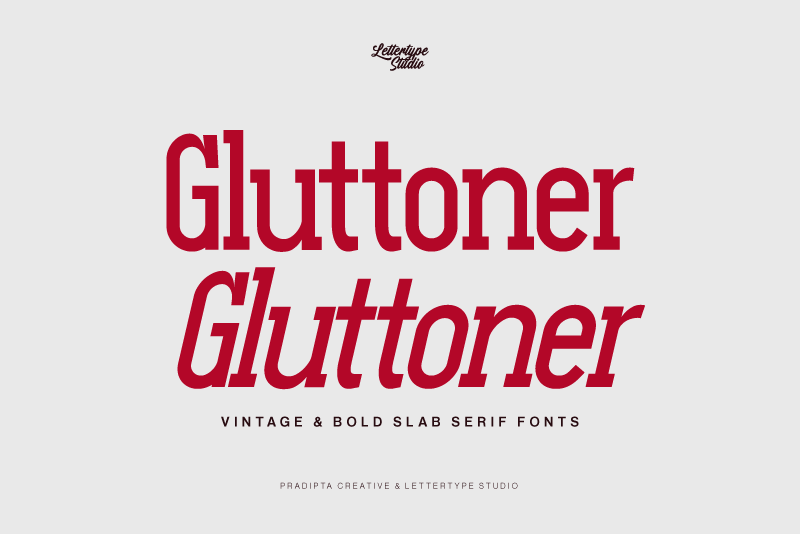
Gluttoner Slab Font
About Gluttoner Slab
Gluttoner Slab is a vintage & bold slab serif font inspired by urban culture with strong characters. Welcome to the new bold world slab serif characters, that fonts will help for any of your projects.
This font will be perfect for your logo design, branding, clothing, sports graphics, posters, editorial titles, headlines, etc.